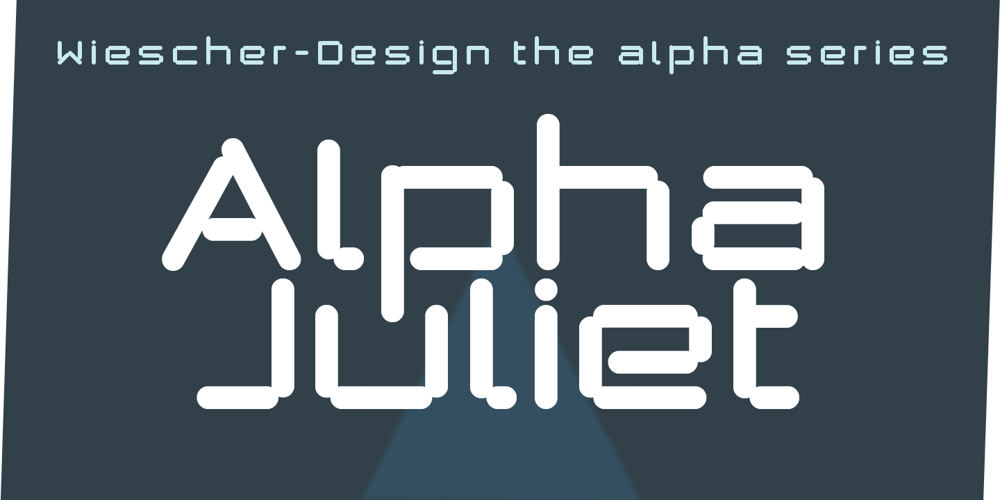
Alpha Juliet Font Family was designed by Gert Wiescher and published by Wiescher Design. Alpha Juliet contains 1 styles and family package options. Alpha Juliet is another font in my alpha-series, the experimental font series. It lends itself to modern designs in all forms. The font can be used together with Alpha Papa since it has the same origins. Your experimental designer, Gert Wiescher